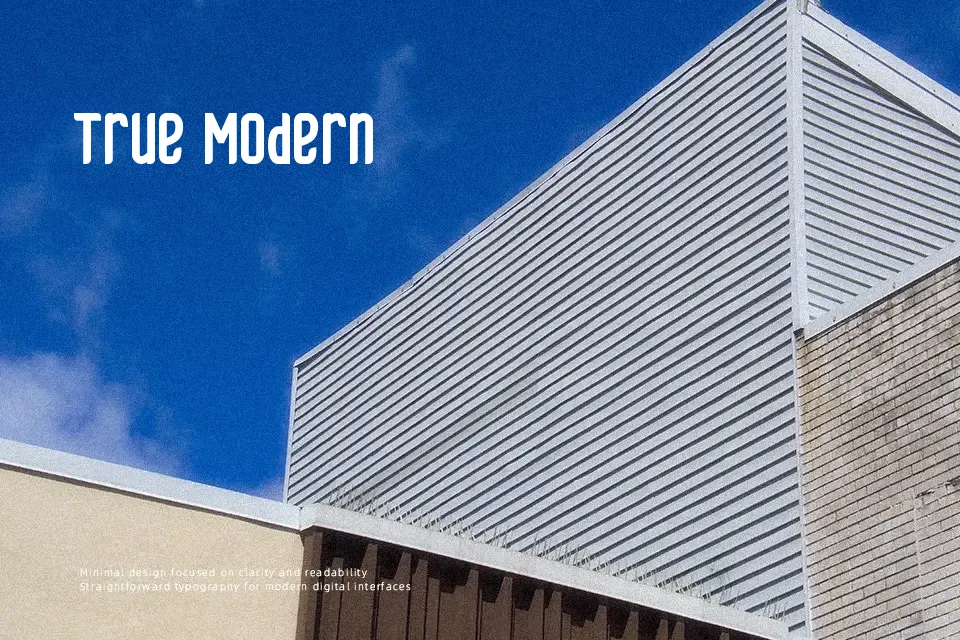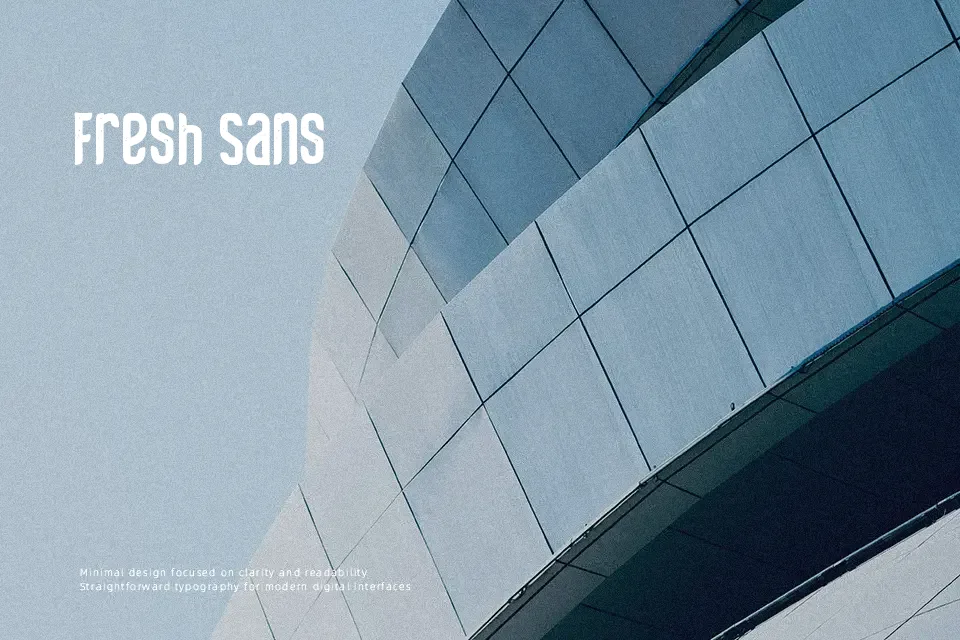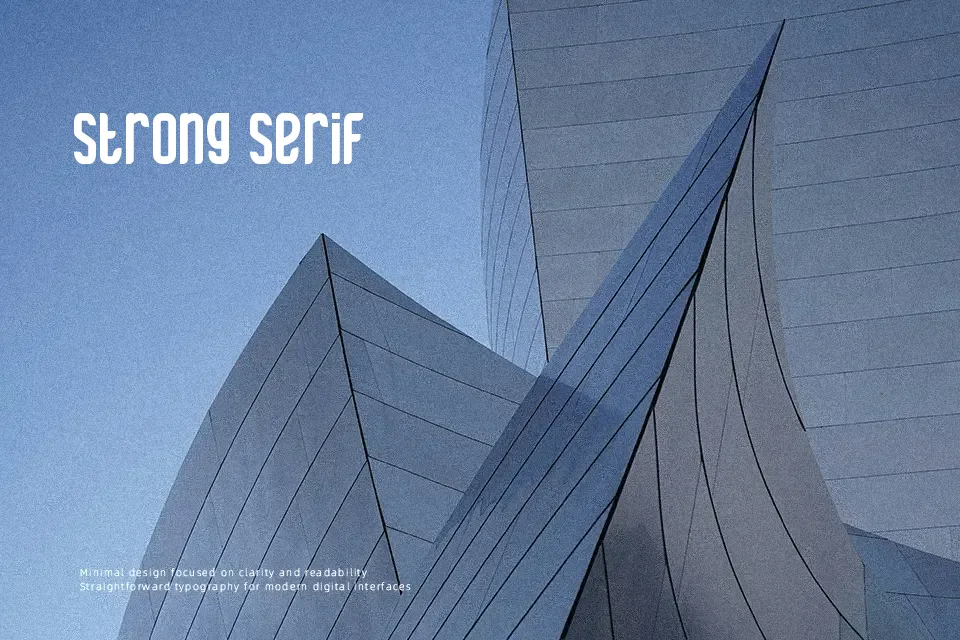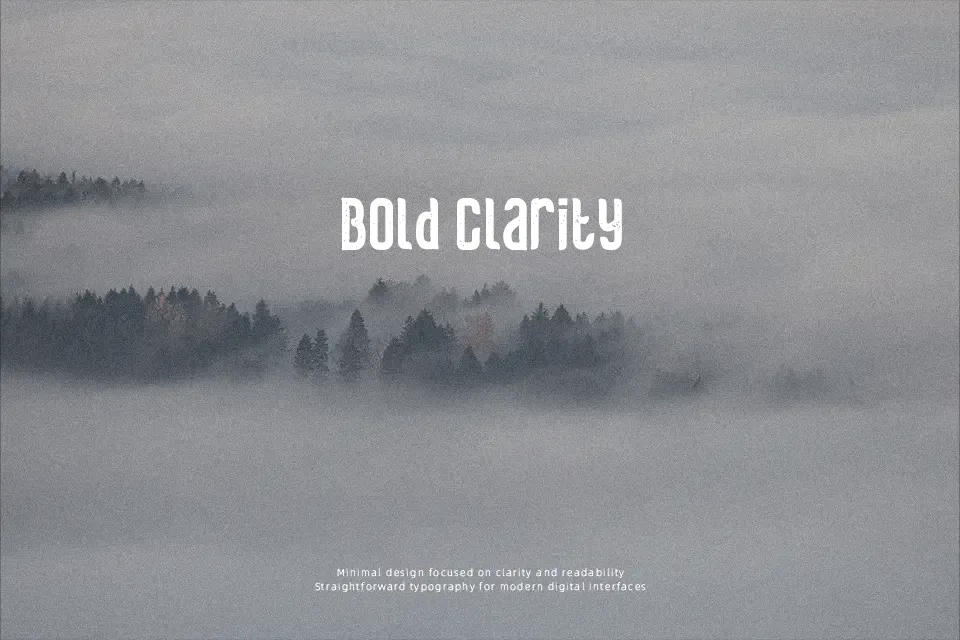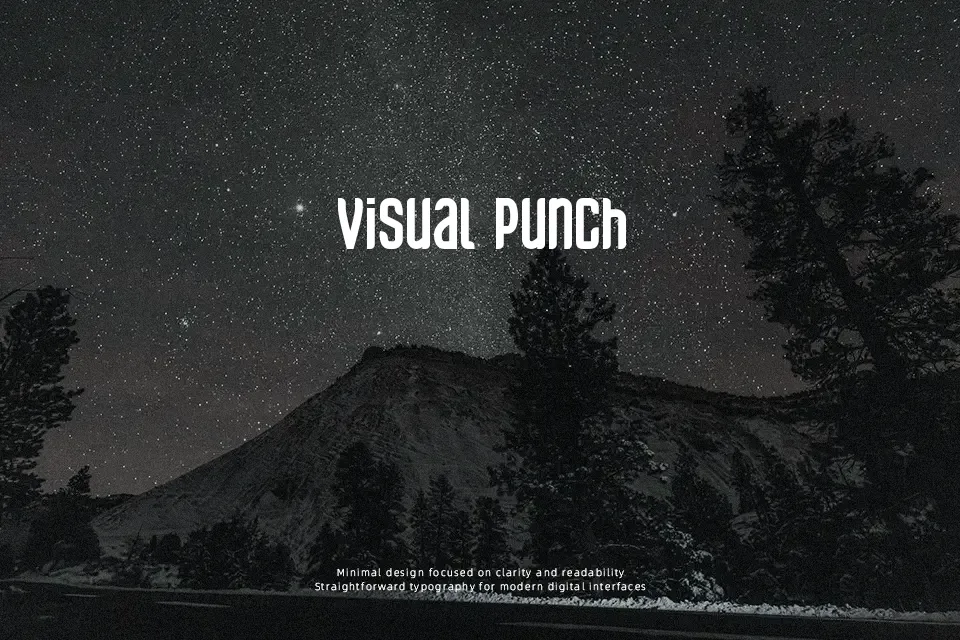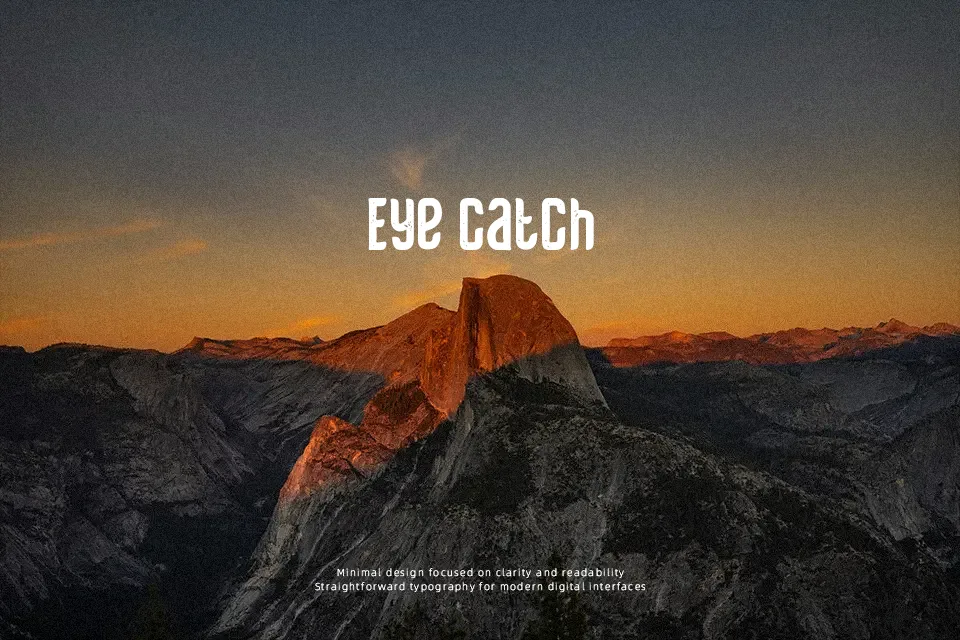
Ravera Font
Ravera Font presents a highly creative approach to modern display typography. The letterforms display a vibrant energy through distinct stroke weight variations and uniquely crafted terminals that give words an artistic, custom feel. Proportions are balanced to maintain visual rhythm, while the open internal spacing keeps the characters legible at larger scales. Decorative details become less effective at smaller sizes, meaning it loses clarity in long paragraph layouts. This typeface performs best when displayed at larger sizes, where its bold character and structural quirks can truly shine. It brings a dynamic, friendly presence to prominent headlines, making it an excellent choice for statement-driven design projects.
modern product packaging, creative branding, large poster headlines, social media graphics
long paragraph text, dense editorial layouts, small interface labels, corporate reports
Perfect for branding, headline, and packaging, with a artistic and decorative style.